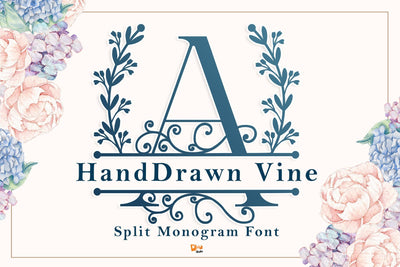
Monogram Handdrawn Vine
Introducing our new product : Monogram Handdrawn Vine - the Split Monogram Font !
Monogram Handdrawn Vine is a lovely, elegant and unique monogram font, a combination of elegant serif font decorated with vines and handdrawn wreath.
Monogram Handdrawn Vine Features:
- All in caps only A-Z ( 1 style )